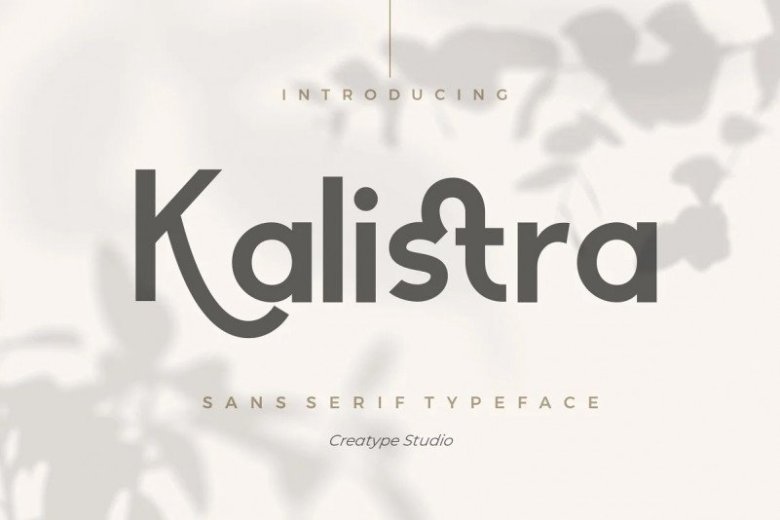
Kalistra Font
Kalistra Sans Serif Font
Kalistra Sans Serif Font is a look stylish, elegant and sophisticated Sans Serif font inspired by a restaurant sign in the 60s.